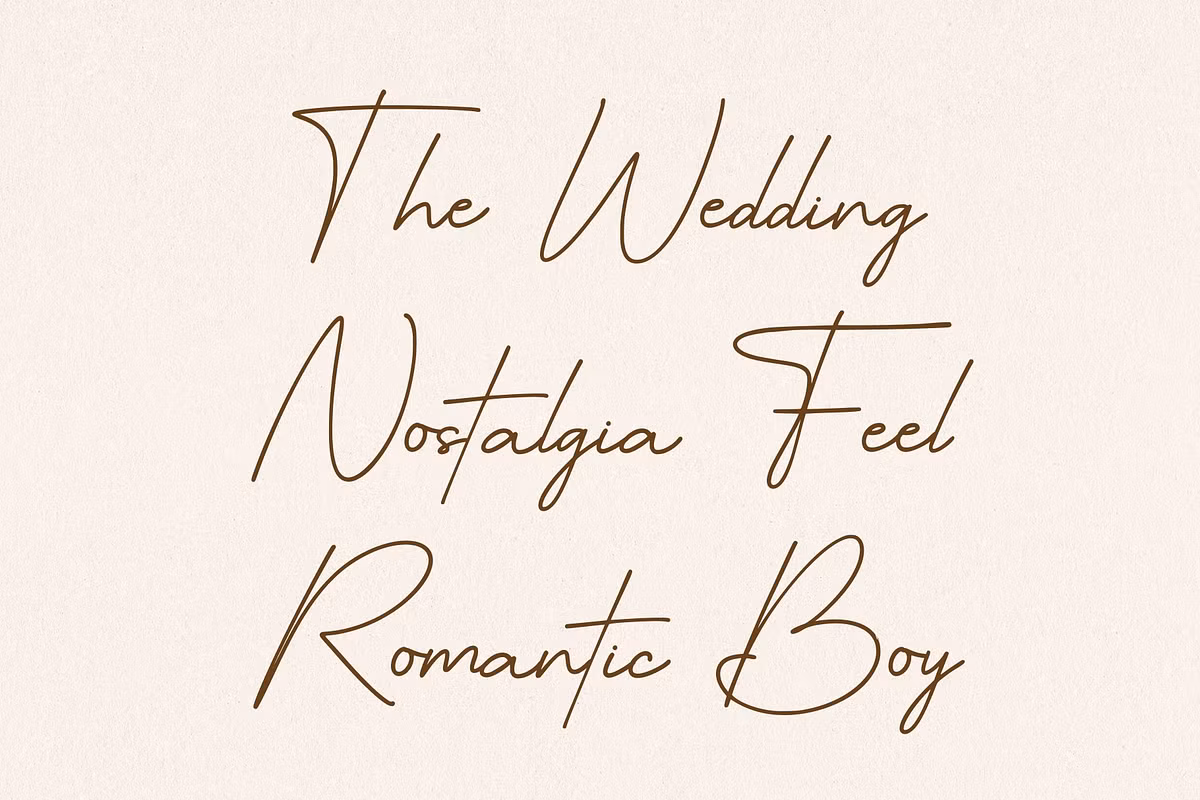
CS Dallas – Signature Font: Elegant Handwritten Script for Branding
CS Dallas: An Overview
CS Dallas is a one-of-a-kind font that looks like it was written by hand. It’s meant to feel personal and unique, like someone’s actual signature. When you use this font, it’s like you’re writing with a pen – it’s got a natural flow and movement that makes it feel really authentic. This makes it perfect for projects where you want to add some personality and style. The lines are smooth and confident, which is great for branding that needs to look sophisticated and elegant. Overall, CS Dallas is a great choice if you want to add a touch of individuality to your design. It’s like having your own personal handwriting, but better – because it’s a font, you can use it anywhere and it will always look great. Whether you’re working on a big project or just something small, CS Dallas can help you make it look more polished and professional.
Design Style of CS Dallas
The way CS Dallas looks is really special – it has beautiful letters and lines that look like they were drawn by hand. Each letter is made to look like it was written by a real person, with a mix of casual and polished feels. This makes CS Dallas perfect for adding a personal touch to designs, making them stand out in a unique way.
Graceful Connections
What makes CS Dallas really special is how smoothly it connects the letters. It’s like handwriting, where one letter just flows into the next. This makes it really easy to read and nice to look at. The way it flows also gives it a warm and friendly feel, which is great for when you want to create a personal brand that feels approachable.
Organic Stroke Variations
The unique touches in CS Dallas give letters a more human feel. Unlike regular fonts that all look the same, these variations make each letter special. This makes the writing seem more real and personal, which is great for brands that want to connect with people on a deeper level. By using a font that looks like it was written by hand, brands can show their audience that they care about the little things and want to build a relationship with them. This kind of authenticity is key to making a brand feel more friendly and approachable.
Character Sets and Features
The CS Dallas font is really versatile and can be used for lots of different projects. It’s got all the usual characters, like uppercase and lowercase letters, numbers, and punctuation marks. Plus, it follows the OpenType standards, which means it can be used in a wide range of situations. This makes it a great choice for anyone who needs a font that can handle different types of text and still look good. Whether you’re working on a big project or just need a font for everyday use, CS Dallas is a good option because it’s so flexible and can be used in many different ways.
Multilingual Support
One major benefit of CS Dallas is that it works well with letters from many languages. The font has accents and special characters, making it perfect for global projects. This means companies can use it to connect with people from different countries without losing their unique style.
PUA Encoding
CS Dallas has a special feature called PUA encoding, which lets you use unique characters and symbols easily. You don’t need any extra software to access them, making it simpler for you to design and be creative. This feature is really helpful because it saves you time and effort, allowing you to focus on your work without getting bogged down in technical issues. With PUA encoding, you can just concentrate on making your designs look great, rather than worrying about how to get the right characters on the page.
Use Cases for CS Dallas
CS Dallas is designed for premium and personal use, making it an ideal choice for a variety of applications. Its signature-inspired form lends itself beautifully to numerous design projects, particularly those that emphasize individuality and luxury.
Branding and Logos
One of the most effective uses for CS Dallas is in branding and logo design. The font’s elegant script conveys sophistication and exclusivity, making it perfect for personal brands, boutique businesses, and upscale products. A logo featuring CS Dallas can leave a memorable impression on potential clients and customers.
Luxury Invitations and Stationery
CS Dallas is a great option for high-end invitations and stationery, perfect for special occasions like weddings, business events, or fancy parties. The font gives everything a classy and genuine feel, making the overall look even more beautiful and sophisticated.
Packaging Design
In the realm of packaging design, CS Dallas brings a chic and sophisticated flair. Brands in the fashion and beauty sectors can leverage this font to create compelling product packaging that stands out on shelves and resonates with consumers seeking high-end experiences.
To maximize the impact of CS Dallas in your designs, pairing it with complementary typefaces is essential. Here are a few suggestions:
- Sans-Serif Fonts: Pair CS Dallas with clean sans-serif fonts such as Montserrat or Open Sans for a modern and balanced look. The contrast between the elegant script and the minimalist sans-serif will create a harmonious visual identity.
- Serif Fonts: For a classic touch, consider pairing CS Dallas with serif fonts like Playfair Display. This combination can evoke a sense of tradition and elegance, ideal for luxury brands.
CS Dallas is not just any font, it’s a way to add some class and make your work stand out. The fact that it looks like it was written by hand gives it a unique feel, and its beautiful letters make it perfect for things like branding, invitations, and packaging. When you use CS Dallas in your projects, you can create visuals that people will remember, and it will add a touch of personality and sophistication to your designs. So why not try out CS Dallas and see what it can do for your creative projects? It’s a great way to make your work look more elegant and refined. With its many uses, CS Dallas is a great choice for anyone looking to add some extra style to their work. Whether you’re working on a big project or just something small, CS Dallas can help you make it look amazing.